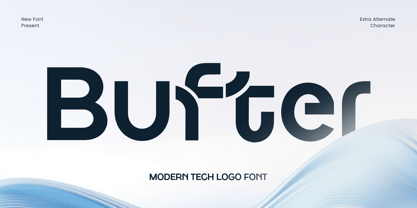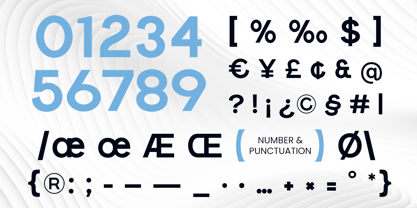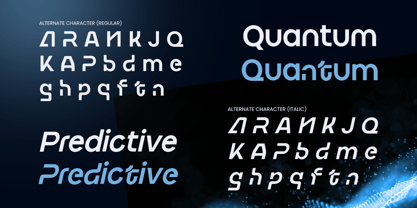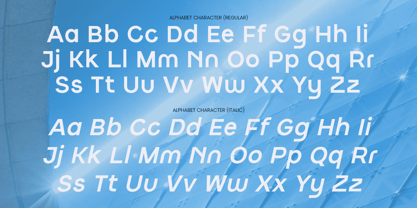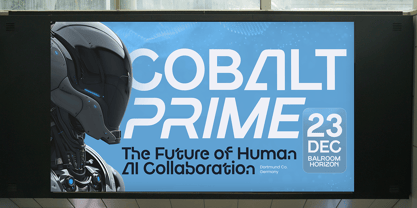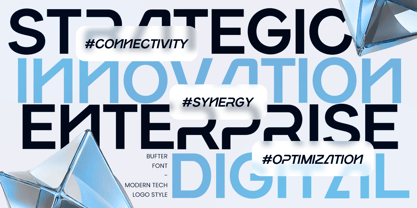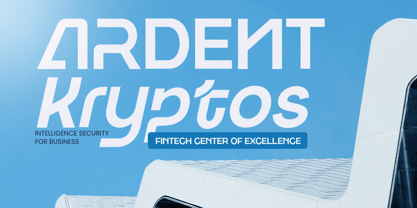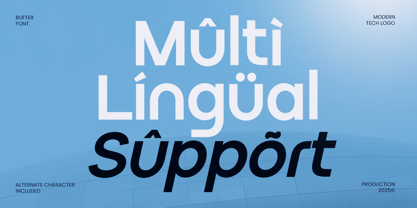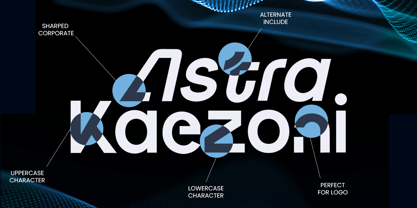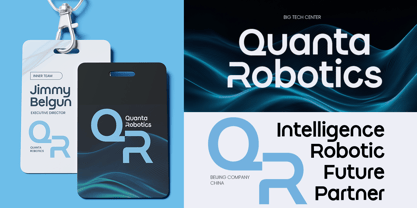
Bufter is a modern techno logo font designed to represent innovation, precision, and forward-thinking design. With clean geometric structures and a sharp futuristic feel, this font delivers a strong technological identity that feels confident, intelligent, and contemporary.
Crafted for logos, brand identities, digital platforms, startups, and technology-driven visuals, Bufter works seamlessly across web, app interfaces, posters, headlines, and futuristic branding systems. Its balanced proportions and modern construction ensure clarity while maintaining a bold, high-tech personality.
Perfect for AI brands, software companies, fintech projects, esports teams, and digital products, this font helps designers communicate innovation and professionalism with a cutting-edge visual tone.
Bufter – Modern Techno Logo Font Features
Modern techno-inspired letterforms
Available with Regular and Italic Version
Clean geometric design with futuristic character
Ideal for logos, branding, UI/UX, and digital products
Includes uppercase, lowercase, numerals, and punctuation
Strong readability for digital and print use
OpenType features for creative flexibility
Multilingual Support Afrikaans, Albanian, Asu, Basque, Bemba, Bena, Breton, Chiga, Cornish, Dutch, English, Estonian, Filipino, Finnish, Friulian, Galician, German, Gusii, Indonesian, Irish, Italian, Kabuverdianu, Kalenjin, Kinyarwanda, Luo, Luxembourgish, Luyia, Machame, Makhuwa-Meetto, Makonde, Malagasy, Manx, Morisyen, North Ndebele, Nyankole, Oromo, Portuguese, Quechua, Romansh, Rombo, Rundi, Rwa, Samburu, Sango, Sangu, Scottish Gaelic, Sena, Shambala, Shona, Soga, Somali, Spanish, Swahili, Swedish, Swiss, and more.
Power your visual identity with Bufter – a modern techno font built for the future of branding. 🤖✨